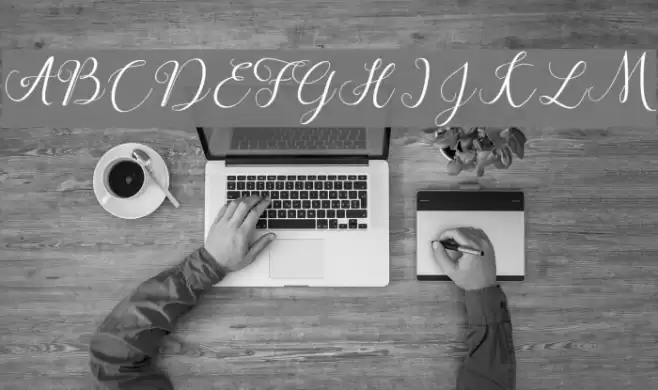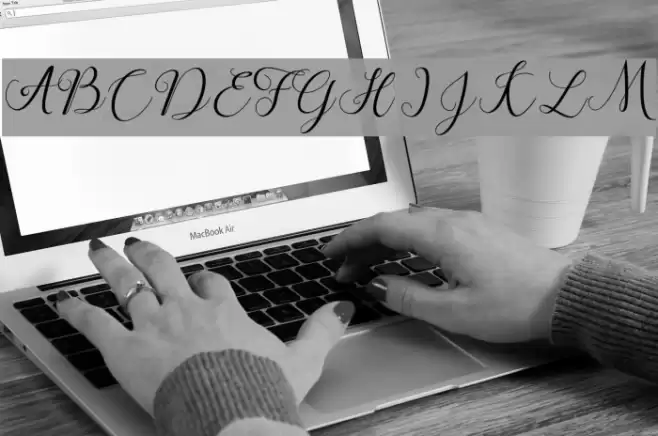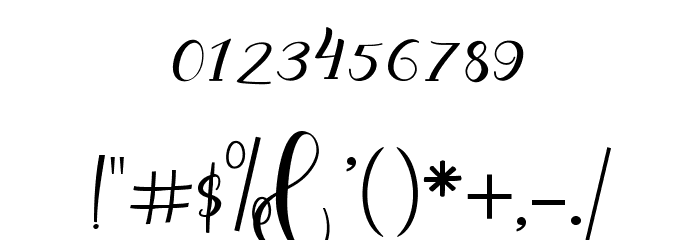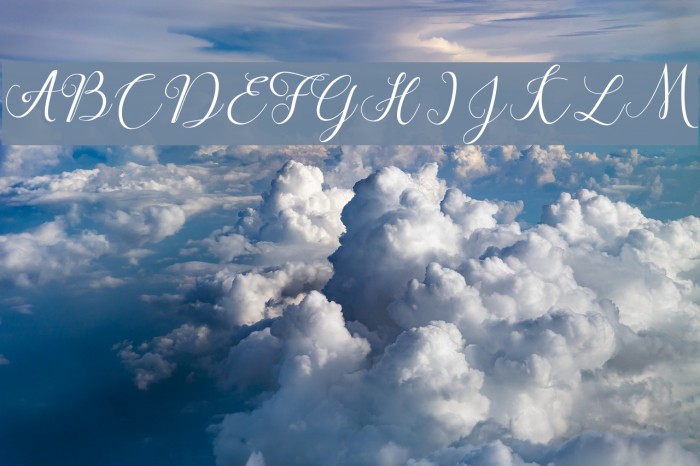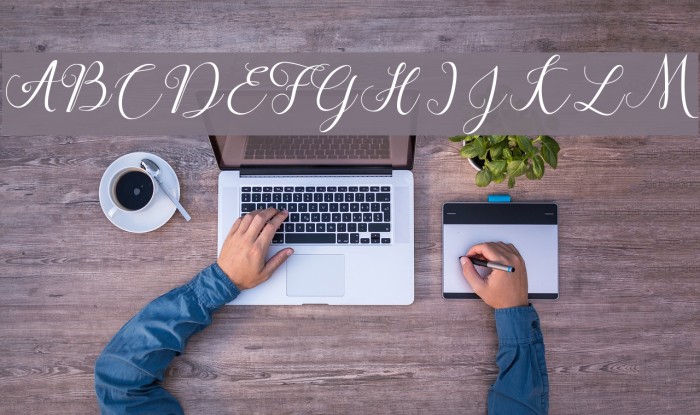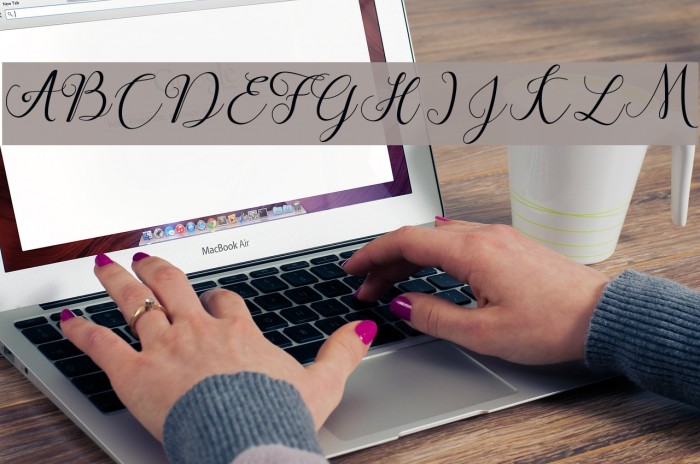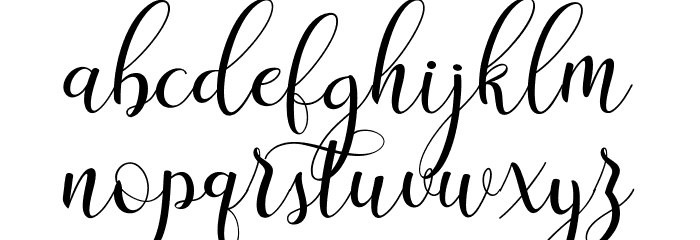
claudia Font
claudia Description
This elegant script font features flowing, cursive letterforms with intricate swashes and loops, giving it a sophisticated and graceful appearance. The uppercase letters are particularly ornate, with extended flourishes that add a touch of luxury and refinement. The lowercase letters maintain a consistent style, with smooth connections and a rhythmic flow. The numerals are more straightforward, providing a balance to the decorative nature of the letters. Special characters are included, matching the overall aesthetic with their own unique embellishments. This font is perfect for projects that require a touch of elegance and class.
An elegant script font with flowing, ornate letterforms and intricate swashes from Uncategorized fonts.
- Proposed Projects: Ideal for wedding invitations, luxury branding, elegant stationery, and high-end product packaging.
- Overall Style: Elegant
- Use Case: Logos, Invitations, Branding